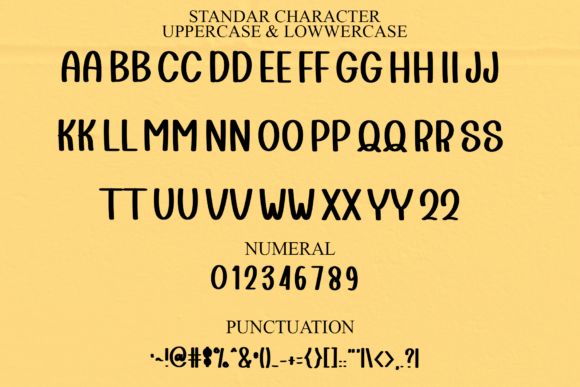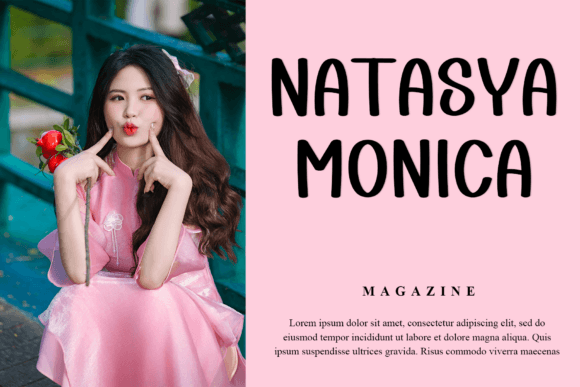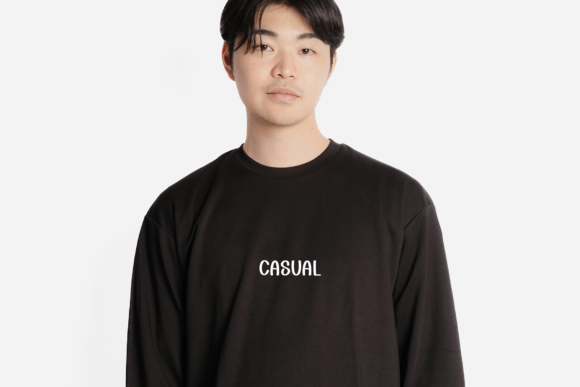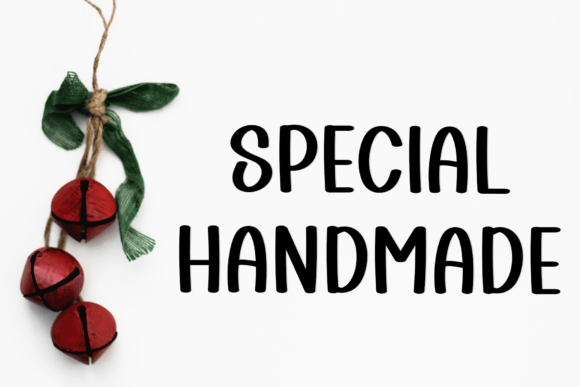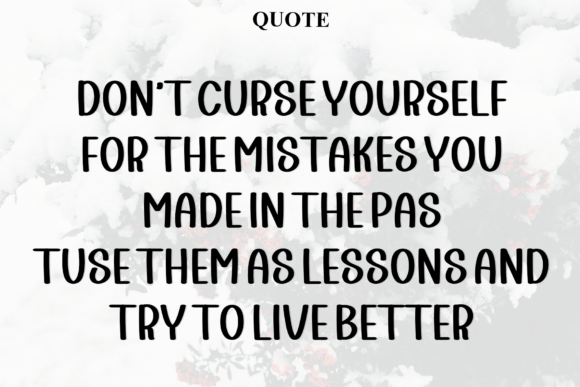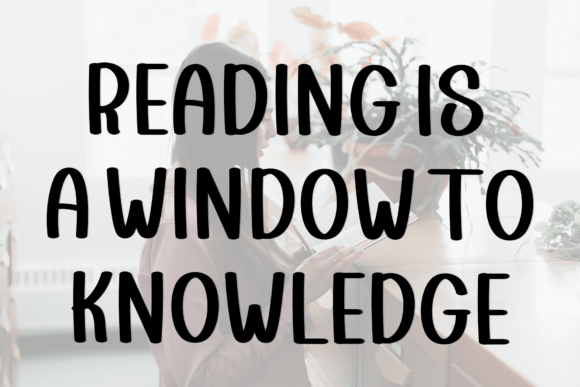
Introduction to Smart Thinker Font
As designers, we’ve all been there – staring at a blank canvas, eager to bring our creative vision to life. But sometimes, the perfect font can be the missing piece that sets our project apart. Enter the Smart Thinker Font, a high-quality design resource that’s about to become your new go-to for any creative project.
With its playful, hand-drawn aesthetic and round strokes, the Smart Thinker Font exudes warmth and friendliness, making it perfect for personal projects, invitations, and social media graphics. Whether you’re working on a design project with a transparent background or need a font to add a fun touch to your graphics, the Smart Thinker Font is an excellent choice. And the best part? It’s available for free download, making it a valuable resource for designers of all levels.
Key Features of Smart Thinker Font
- High-quality font design with a transparent background, ideal for creative projects and designs.
- Perfect for use in digital designs, with a resolution of 300 DPI for crisp and clear display.
- Unique and modern design makes it suitable for a wide range of creative projects, from logos to brochures.
- Smart Thinker Font is designed to be highly legible, even at small font sizes, making it ideal for body text and headings.
- Supports a wide range of languages, including Latin, Cyrillic, and Greek alphabets, making it a versatile design resource.
Honest Review: Smart Thinker Font
I recently stumbled upon the Smart Thinker Font, and I must say it’s been a game-changer for my creative projects. The high-quality design resource has been a great addition to my toolkit, offering a modern and sleek aesthetic that’s perfect for any project.
One of the things I love about this font is its transparent background, making it incredibly versatile and easy to work with. I’ve used it for everything from business cards to presentations, and it always looks great.
- ✨ High-quality design that’s perfect for modern projects
- ✨ Transparent background makes it easy to work with
- ✨ Great for creative projects, including business cards and presentations
- ⚠️ Limited font variations (only one style available)
- ⚠️ Not suitable for complex or large-scale projects
Overall, I’m really impressed with the Smart Thinker Font. It’s a great design resource that’s perfect for any creative project. The free download is a bonus, making it accessible to designers of all levels.
How to Use Smart Thinker Font
The Smart Thinker Font is a high-quality design resource perfect for creative projects. Its unique and modern design makes it a great addition to any project.
To get the most out of the Smart Thinker Font, use it on a transparent background to create a modern and sleek design. You can also pair it with other fonts to create a unique and creative look.
The Smart Thinker Font is perfect for a variety of creative projects, including logos, business cards, brochures, and more. It’s also great for personal projects, such as social media graphics and blog posts.
Alex Brush is a beautiful script font designed for creative projects that require a high level of sophistication and elegance. It’s perfect for design elements that need a touch of whimsy and romance. When to use: wedding invitations, menus, and other creative projects that require a touch of whimsy and romance.
Alex Brush Font is a great alternative to Smart Thinker Font as it offers a similar level of sophistication and elegance, but with a more delicate and refined look.
Ostrich Sans is a modern sans-serif font perfect for design projects that require a high level of clarity and readability. It’s ideal for corporate branding, advertising, and other design elements that need a clean and professional look. When to use: corporate branding, advertising, and other design elements that require a clean and professional look.
Yes, Smart Thinker Font includes a transparent background, making it easy to integrate into various design elements. This feature allows designers to achieve a seamless look and feel in their creative projects, enhancing the overall visual appeal.